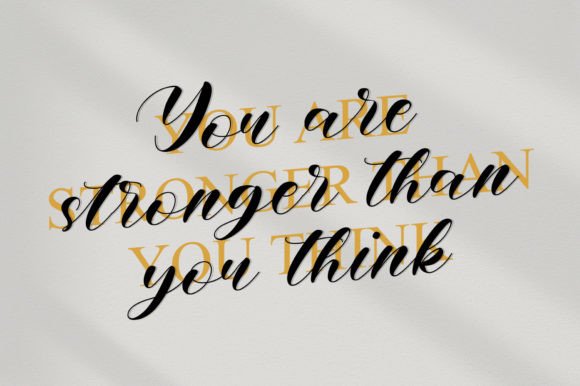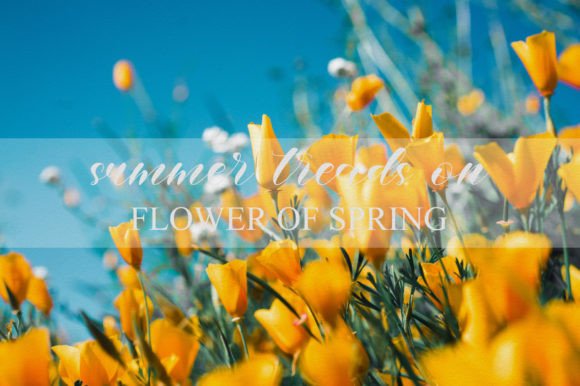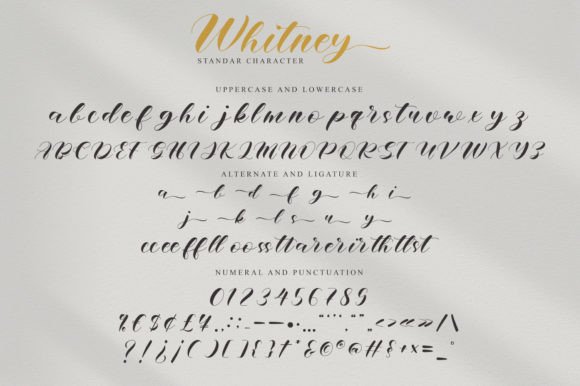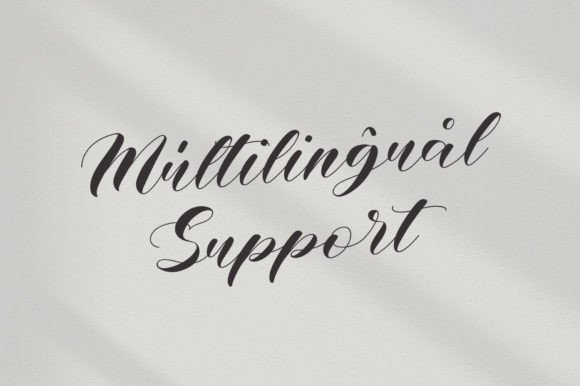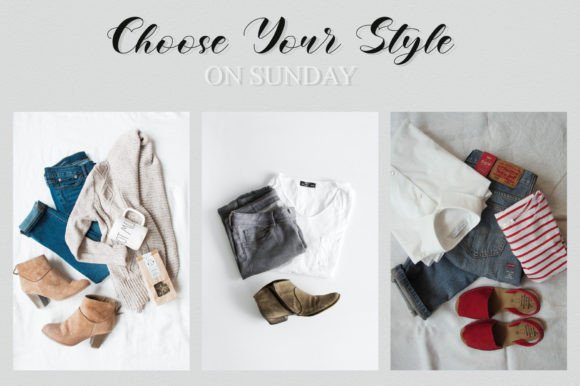
About Whitney Font
Whitney is an exquisite handwritten font that has been masterfully designed to become a true favorite. This font maintains its classy calligraphic influences while also feeling contemporary and fresh. Fall in love with Whitney, and let it elevate your projects to the highest levels of elegance and style.
The combination of classic calligraphic influences and a contemporary design makes Whitney a versatile and timeless choice. Its elegance adds a touch of sophistication to any project, making it suitable for a wide range of applications.
In invitations and formal events, Whitney brings a sense of grace and charm. Its exquisite handwritten style enhances the overall aesthetic, creating beautifully crafted pieces for special occasions.
For branding and logo design, Whitney becomes a distinctive choice. Its combination of classiness and contemporary freshness ensures that your brand or project is perceived as both refined and up-to-date.
In digital designs and social media graphics, Whitney stands out with its graceful and contemporary feel. It adds a level of sophistication to your online presence, making your content visually appealing and engaging.
Product packaging also benefits from Whitney’s exquisite handwritten style. It contributes to a stylish presentation, making your products more attractive and appealing to consumers.
The ability of Whitney to seamlessly blend classic influences with a modern touch makes it a valuable asset for various design contexts. Its masterful design allows you to bring a high level of elegance to your projects, creating a lasting impact.
In summary, Whitney is not just a font; it’s an exquisite handwritten design tool that marries classic calligraphic influences with contemporary freshness. Whether used for invitations, branding, digital designs, or product packaging, Whitney has the power to elevate your projects and bring them to the highest levels of sophistication and style.